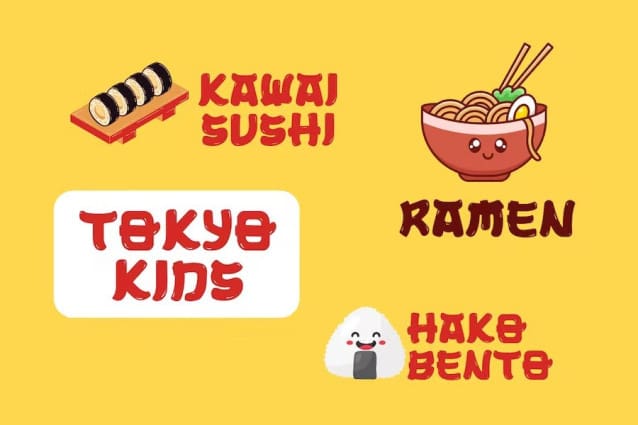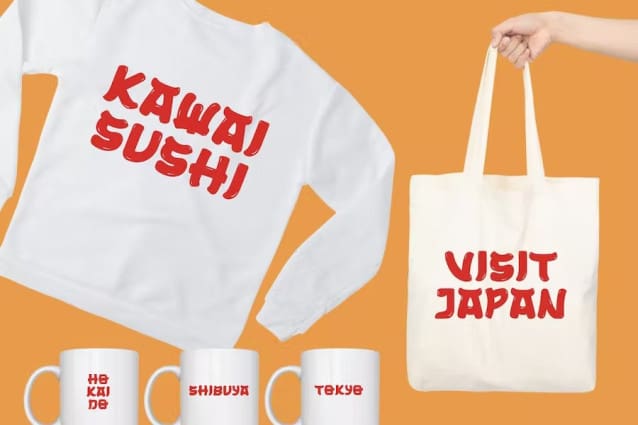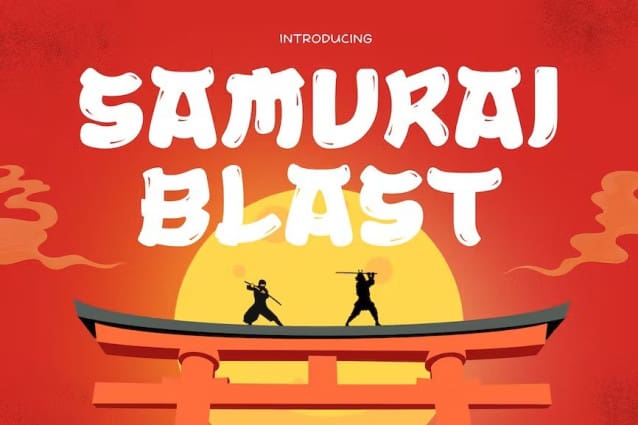
Samurai Blast Font
Samurai Blast Font is a new font from Slidehack. This cute hand-drawn Japanese style font will be perfect for your headline font, logo font and other display. This font is easy to install both in Mac or PC without any additional software.